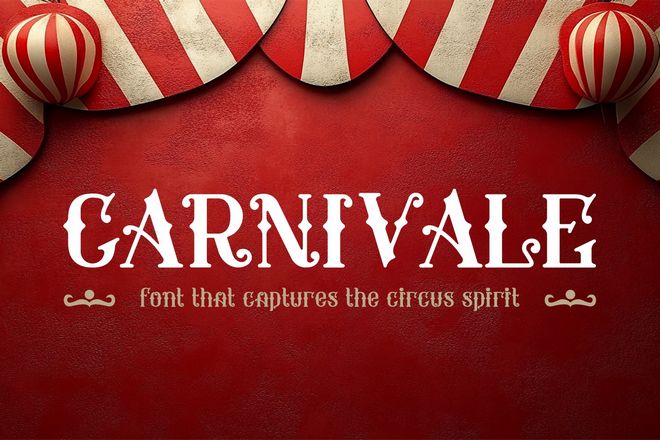
20+ Best Carnival Fonts (Free & Pro)
If your design needs to shout fun, excitement, and nostalgia, carnival fonts are the way to go.
With their bold shapes, playful curves, and vintage flair, these fonts instantly bring to mind flashing lights, striped tents, and the sound of calliope music echoing through the fairgrounds.
In this roundup, we’ve put together the best carnival fonts that capture the spirit of old-school amusement parks and circus posters.
Carnival fonts are all about drama and joy, great for when you want to stop people in their tracks and make them smile. That’s exactly what this collection of fonts is all about!
Boldin Carves – Vintage Carnaval Font
Boldin Carves is a vintage carnival-style serif font that inspires elegance and nostalgia. It includes upper and lowercase characters, numerals, punctuation, and multilingual support. Available in OTF and TTF file formats, Boldin Carves comes in three unique styles: Basic, Strip, and Grunge. Perfect for enriching your branding, logos, labels, packaging, stickers and much more.
Boggle Royale – Classic Carnival Font
Boggle Royale is a layered display typeface inspired by vintage circus and festival signage. It comprises three fonts: Regular, Shadow, and Hatch, allowing for detailed, creative designs. Ideal for logos, invitations, labels, packaging, and more, it blends formality and retro style seamlessly. It also supports multiple languages and comes in OTF, TTF, and Webfont formats, offering great versatility.
Circus Show – Carnival Display Font
Circus Show font is inspired by American circus and 80’s tattoo typography. Offering seven unique styles including Regular, Dot, Centerdot, Line, Needle, Rough, and Outline, this versatile typeface is perfect for creating eye-catching logos, posters, headings, social media posts, product packaging or even greeting cards.
Carneval – Layered Carnival Font
Carneval is a fun and playful font inspired by childhood carnivals. This cheerful double-style font is designed to create lively imagery reminiscent of joyous occasions. Carneval is uniquely layered with a bold basic font, shadow font, and a dot font on top which adds a captivating depth. It also features a shorter, chubby version and includes a large vector set with a carnival theme.
Freakshow – Carnival Font
Inspired by vintage ads and publications, this unusual display font mixes styles such as eroded, medieval, and script with modern characters. Its eccentric arrangement might remind you of a ransom note made from shredded old newspapers. Basic latin and punctuation are included, with various other additional features.
Acrobats – Circus & Carnival Font
Acrobats is a vibrant and dynamic display font that adds a splash of carnival magic to any design project. Perfect for adding flair to logo branding, editorial layouts, blog designs, stationery, and event invitations, it’s a versatile addition to your creative toolkit.
Shoebox Circus – Carnival Font
Shoebox Circus is an enchanting display font inspired by vintage carnival signage and playful lettering. The bold strokes and unique flourishes help your designs effortlessly stand out. With coverage in uppercase, numerals, and punctuation in several formats (OTF, TTF, and WOFF), it’s great for creating eye-catching posters and banners, or adding a touch of nostalgia and charm to any project.
Soulup – Layered Carnival Font
Soulup, the carnival-inspired typeface, brings the vibrant energy of the circus to any design. Its unique, multi-layered format allows for colourful, dimensional typography that’s perfect for a retro or signage concept. Soulup is easy to use across multiple programs, with complete Unicode support for simple integration.
Peronas – Vintage Carnival Font
Peronas is a unique display font that draws inspiration from vibrant American circus and carnival typography. It’s perfect for designing logos, social media captions, movie and book titles, as well as short to long text letters. The font comes with a range of features, including OTF, TTF, WOFF, web fonts, numerals, and multilingual options.
Chester – Layered Carnival Font Family
Chester is a layered font family, drawing inspiration from rustic sign painting and old postcard stamps. This versatile, decorative font comes with six different styles, including Basic, Inline, Inner dot, Gradient Inline, Shadow outline, and Drop Shade. It’s a highly adaptable option for a range of uses from logos and packaging to posters and book covers.
Greatest Circus – Carnival Font
Greatest Circus is a unique carnival-inspired font, bringing excitement and nostalgia to your designs. It comes in four distinct styles: regular, outline, extrude, and inline, which can be mixed and matched for an engaging look. This font is ideal for capturing the essence of circuses, music events, magic shows, or any leisure and entertainment-based promotions with a classic American feel.
Cowboya – Free Carnival Font
Another free carnival-themed font for designing vintage, decorative titles. This free font combines elements from the old West with classic serif letters to create its unique look. The font is free for personal use only.
Carnival VP – Free Slab Serif Font
You can use this slab serif font to craft modern titles and headings inspired by carnival-style typography designs. The font is ideal for big posters, flyers, labels, signage, and more. It’s free to use with personal projects.